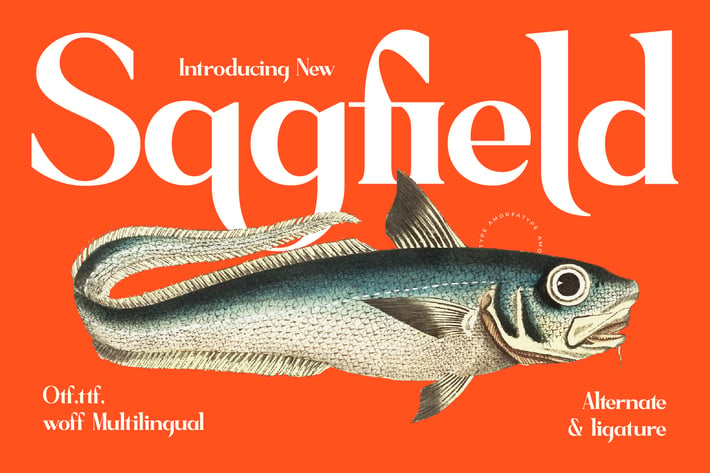
Sagfield Modern Serif Font
Sagfield is a striking modern serif font that seamlessly blends timeless elegance with modern innovation. With sharp serifs and meticulously crafted curves, this font radiates sophistication while ensuring excellent readability. Its balanced contrast in strokes and refined letterforms create a visually harmonious and distinctive typeface, ideal for a variety of creative applications.
- Versatile & Timeless – Ideal for both modern and classic compositions
- Multilingual Support – Includes a wide range of international characters
- Complete Character Set: Uppercase, lowercase, numerals, punctuation, and ligatures